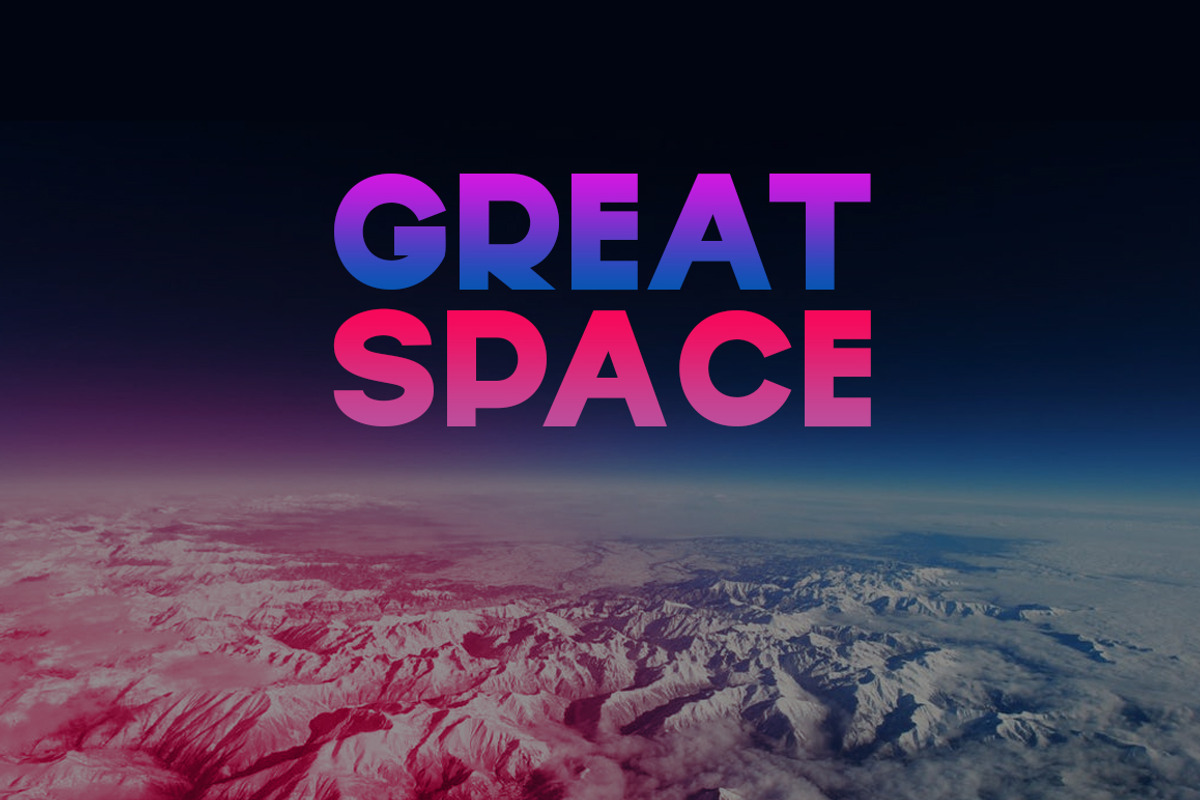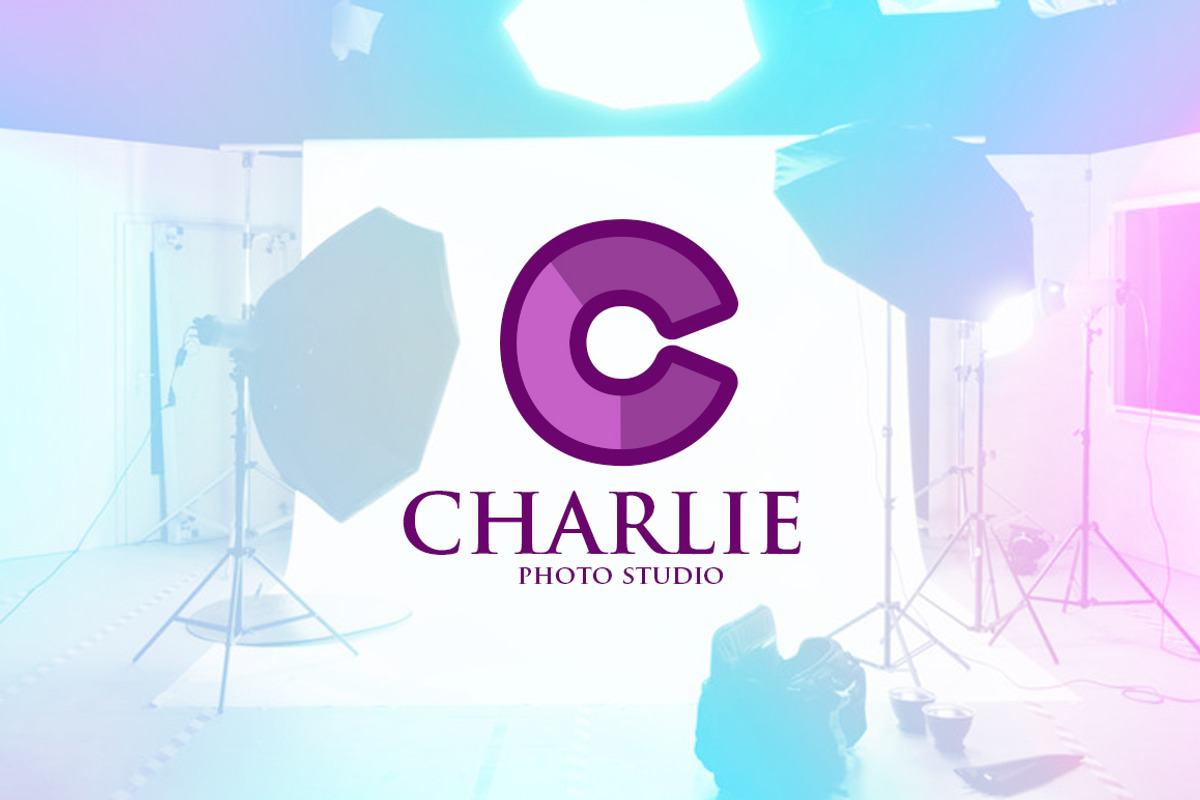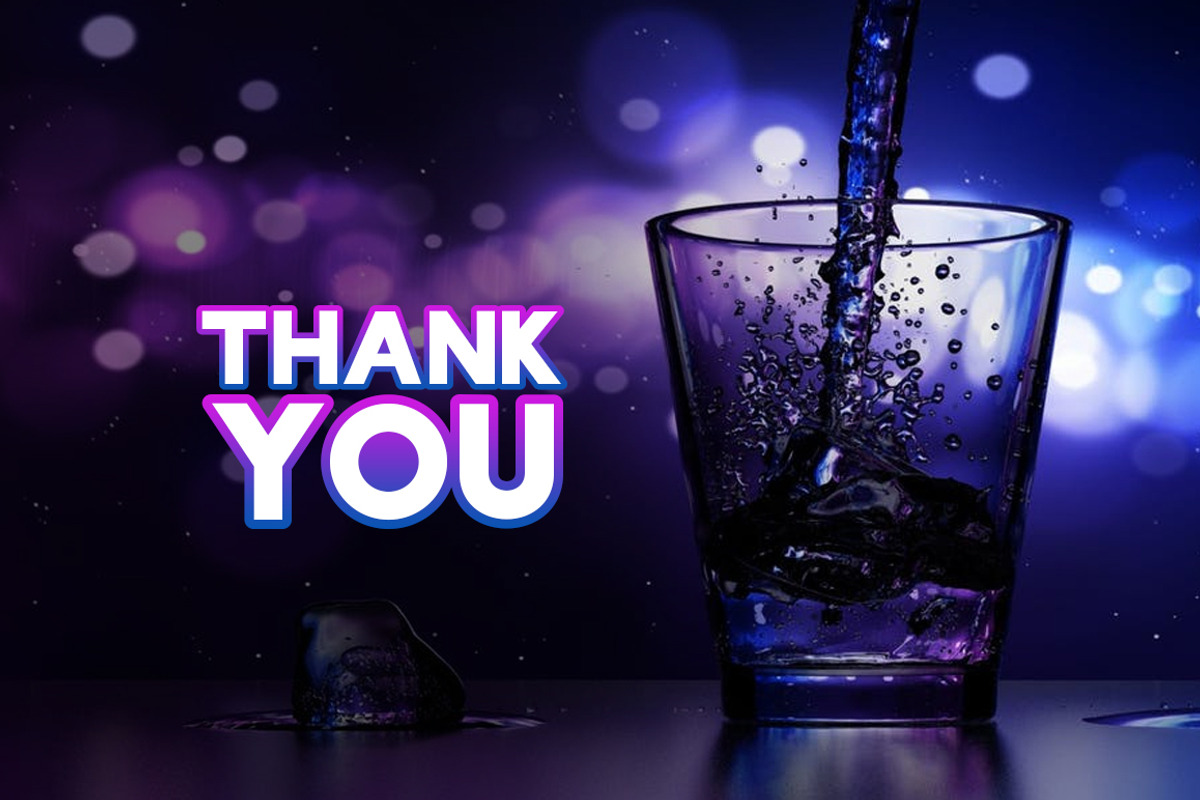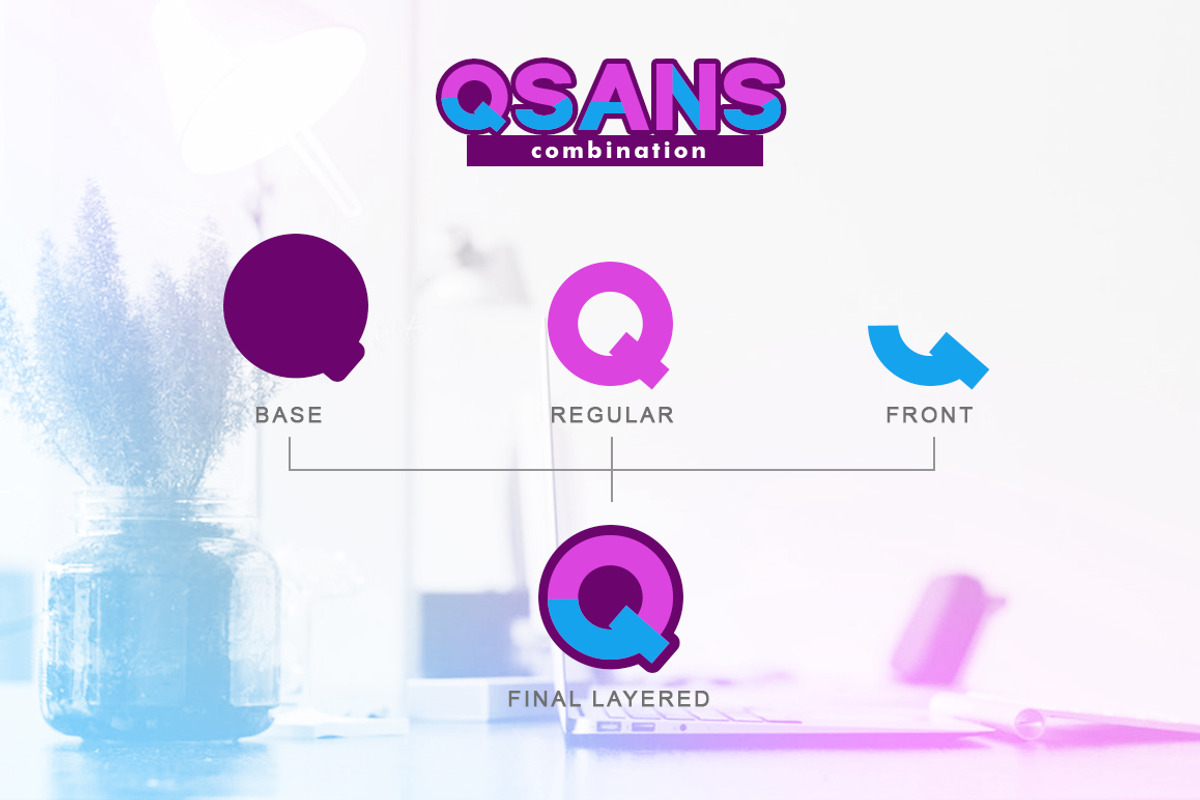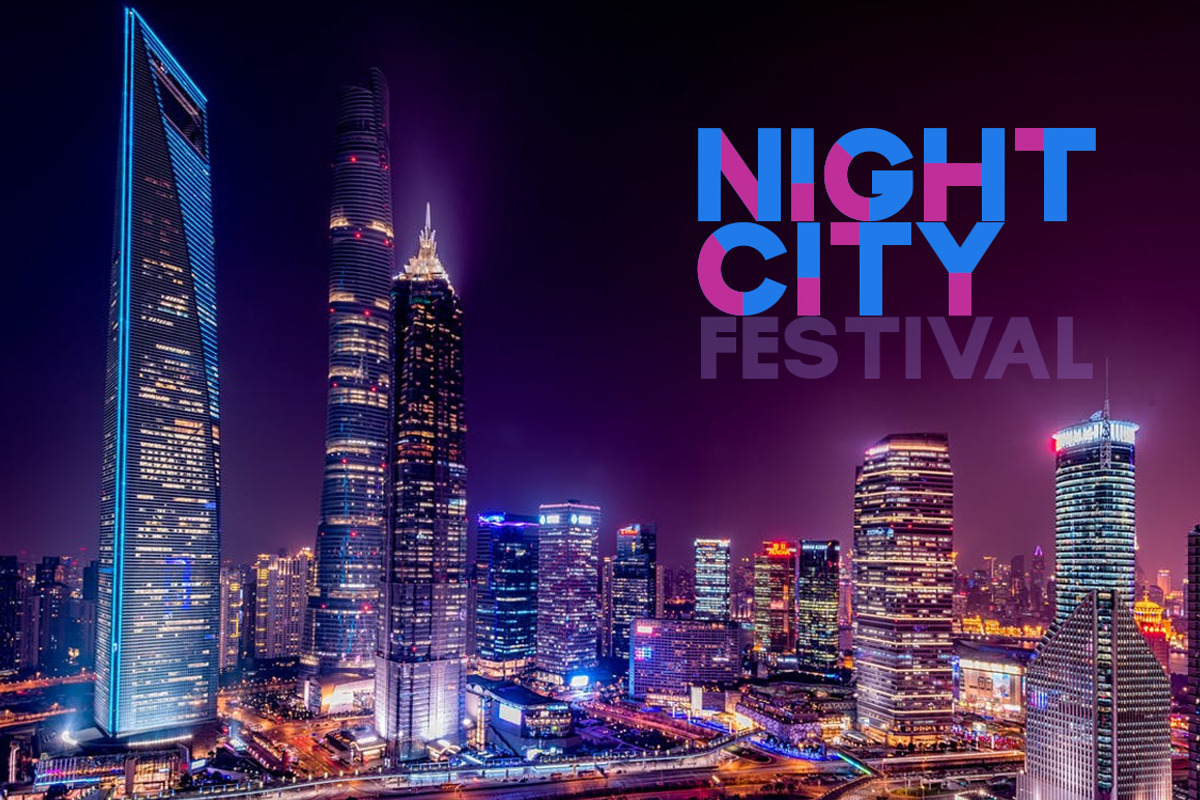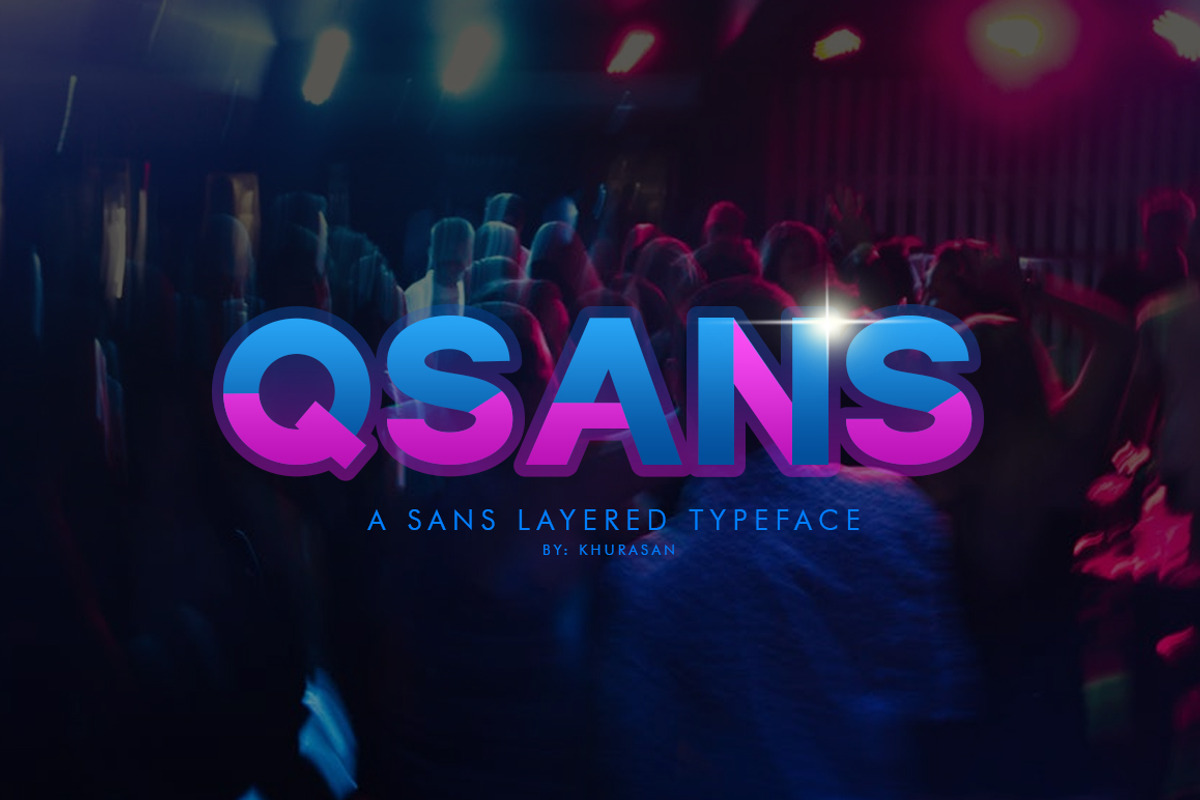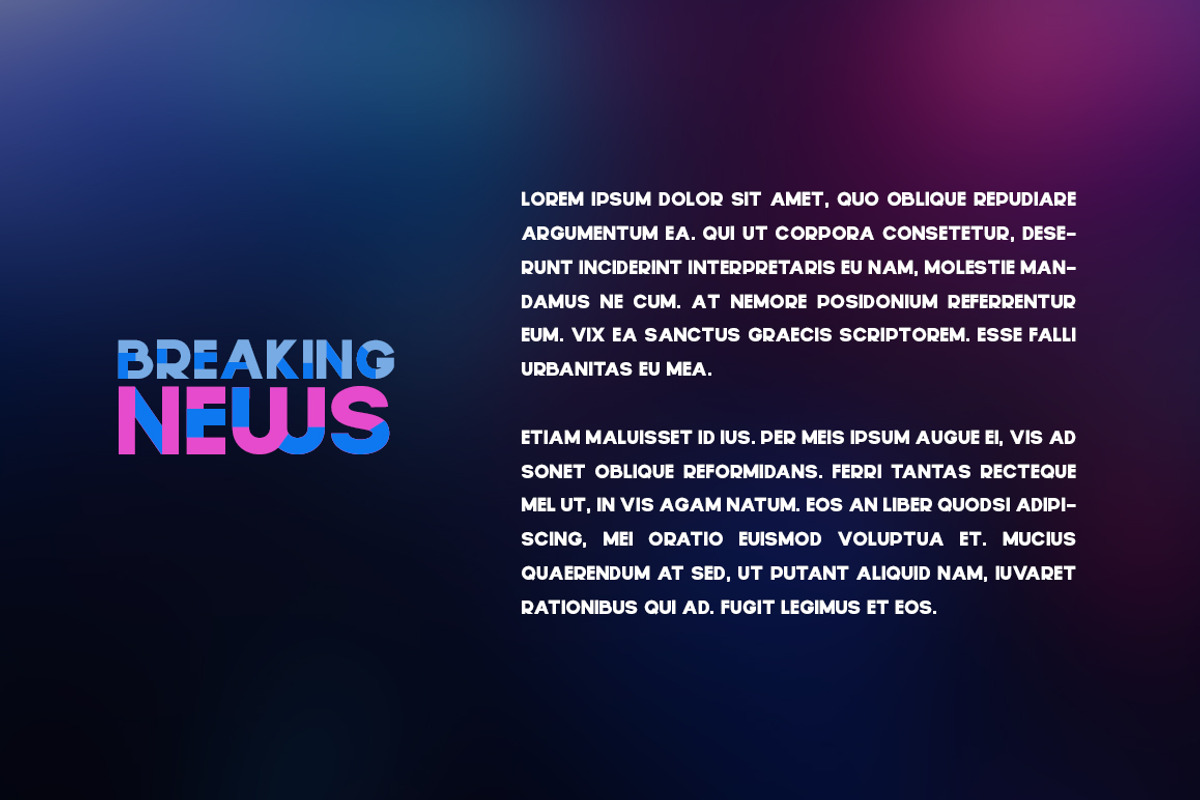
Qsans Layered Font
Qsans Font a bold display layered typeface and awesome character with 3 different style, regular, front and base. Qsans font support multilanguage & used with layers method. Qsans it’s perfect for namecard, poster, logo, magazine, cover, banner, tshirt and headers, or even large-scale artwork.